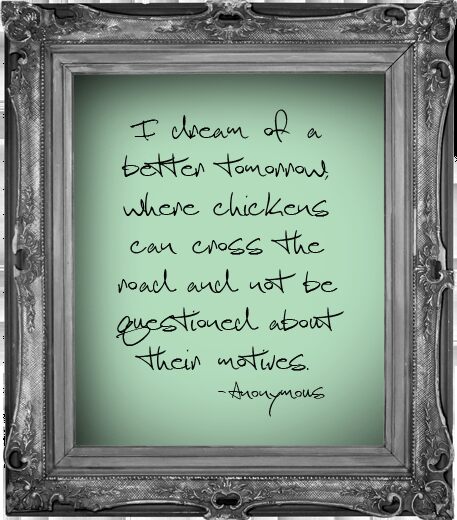
Scotosaurus by Scott Ford Aneloski is a free handwritten font with oversized loops and abrupt changes in direction. Its thin, restless strokes overlap and double back, making the letters look quickly improvised. Tall uprights and broad curves give the line a lively, uneven silhouette.
It turns lettering into a scribbled signature or gestural mark. This suits album artwork, fashion branding, and event posters built around an unruly personal voice. In editorial design, it can give magazine cover lines the immediacy of notes made directly on the page.